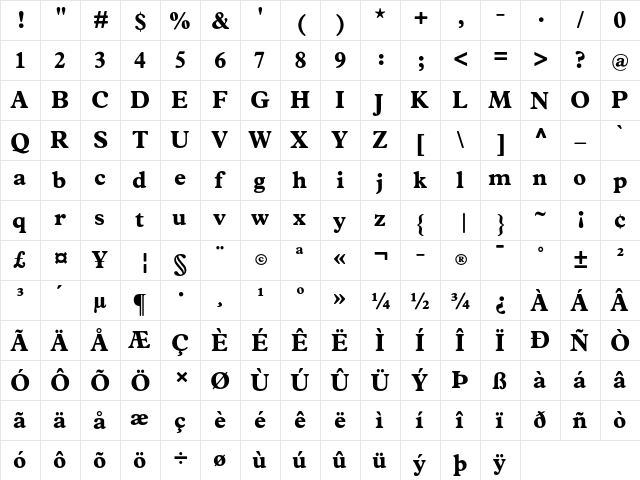
Index-Bold Regular
| Foundry | Optimo, Switzerland |
| Designer | Optimo, Switzerland |
Design Context for Index-Bold Typeface
Index-Bold takes a measured approach to typography — its balanced proportions and neutral character make it a reliable workhorse for both digital and print work. Its bold stroke weight gives it real presence on the page.